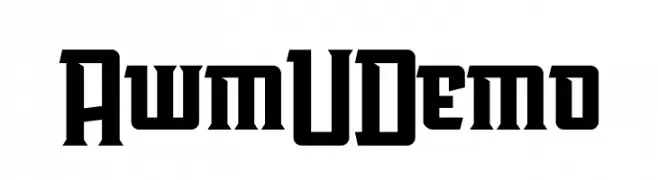
A bold, angular font with a modern blackletter style.
A bold, slanted font with sharp angles and a dynamic presence.
A playful font with paw print embellishments on each character.
A decorative, geometric font with tall, narrow letterforms and a modern aesthetic.
A bold, flowing script font with elegant curves and fluid strokes.
A bold, flowing script font with elegant cursive letterforms.
A bold, rounded font with a modern and futuristic style.